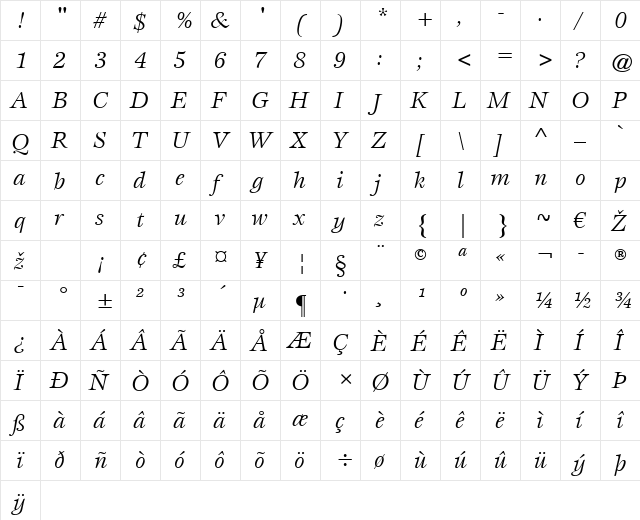
Esprit LT Book Italic
Design Context for Esprit LT Book Typeface
Esprit LT Book is a composed and adaptable typeface that performs quietly and consistently across a wide range of design contexts. The dynamic lean of this cut emphasises speed and emphasis in any layout. The delicate stroke weight brings airiness and refinement to layouts.